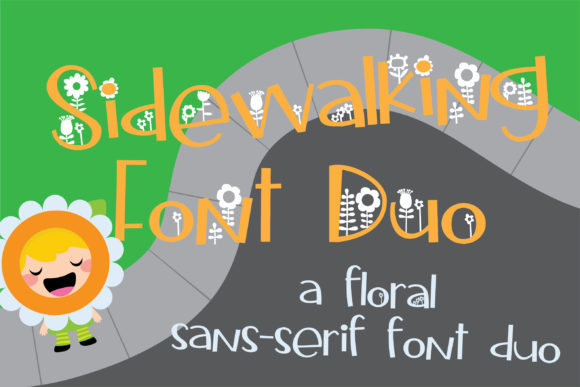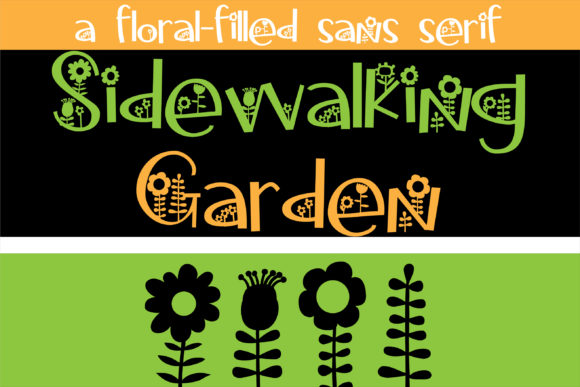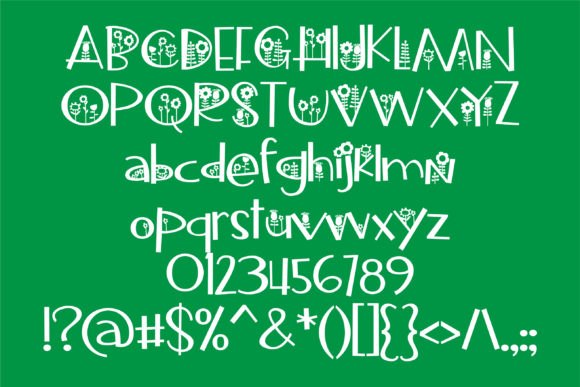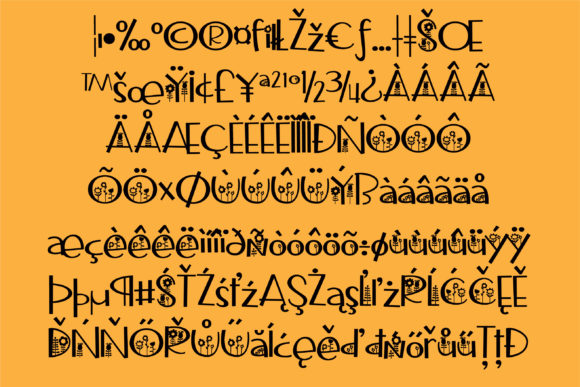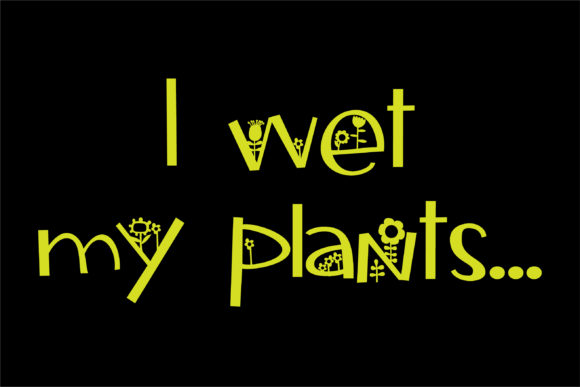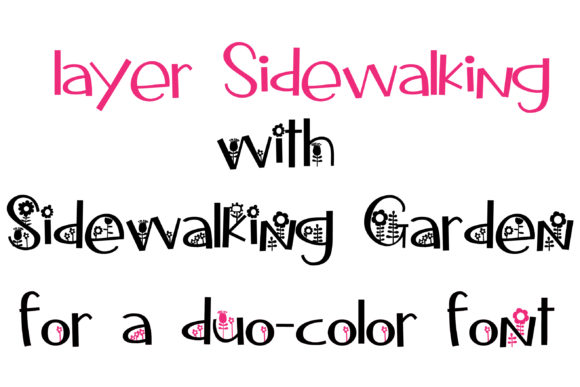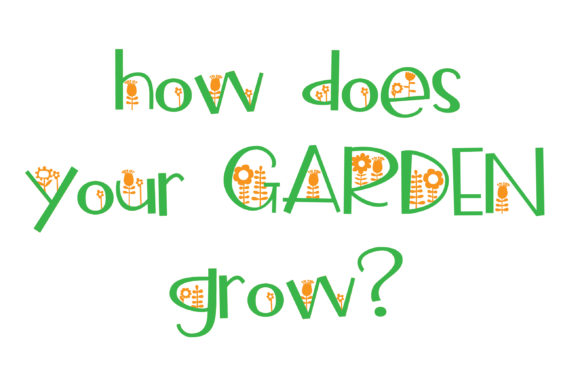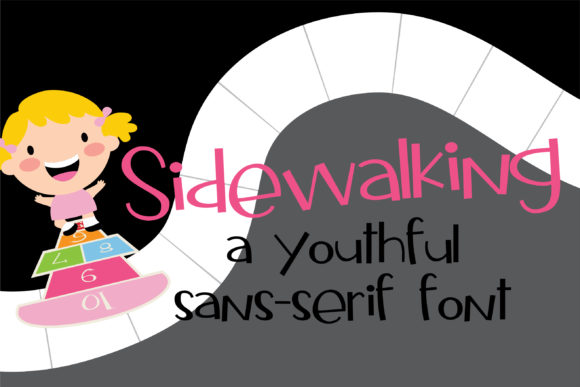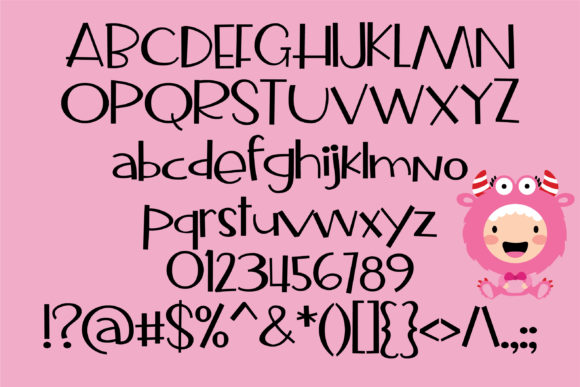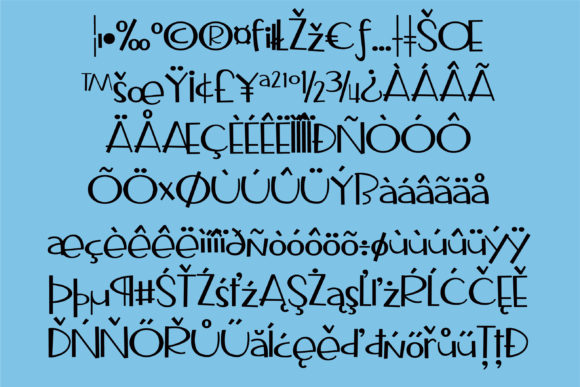
Sidewalking Duo Font
About Sidewalking Duo Font
This sans serif font is whimsical and fun and has a second floral version that can be used with it or alone to for a duo-color font. It will turn any creative project into a stand out.